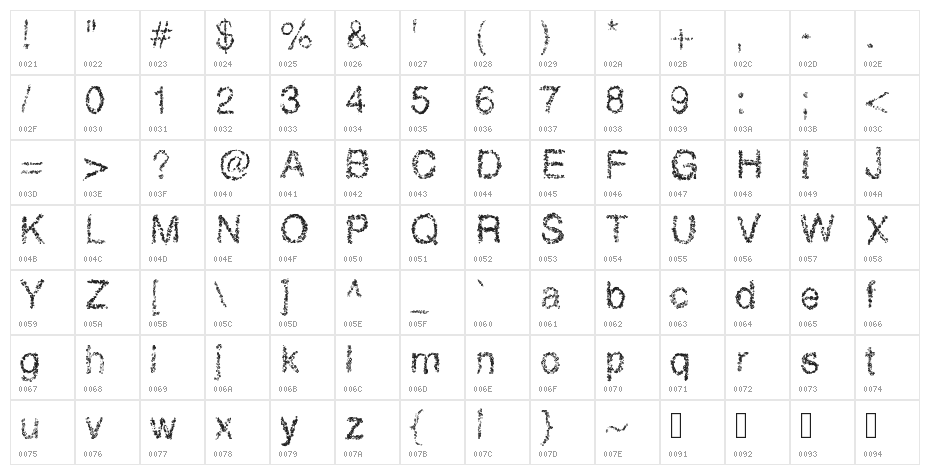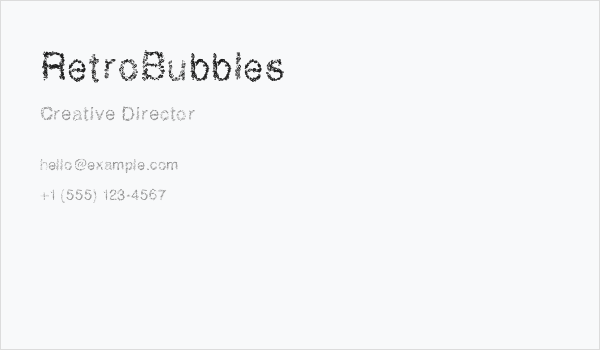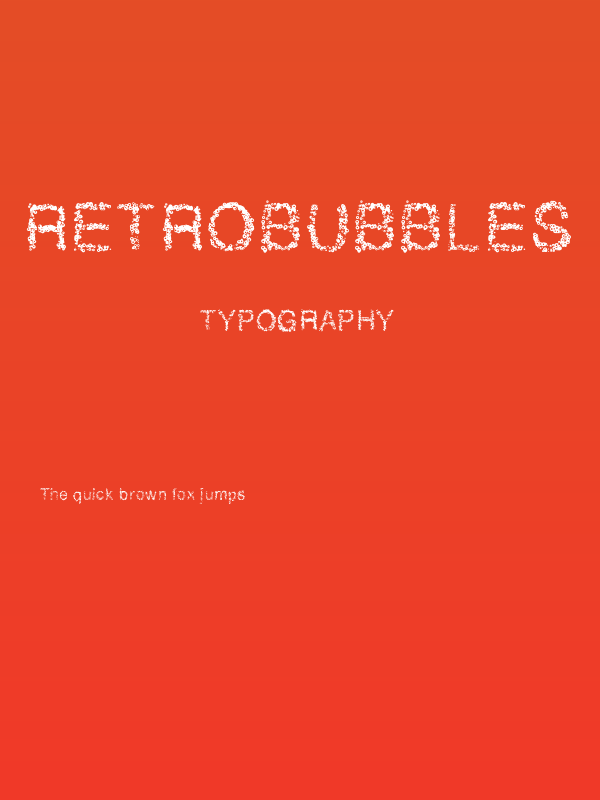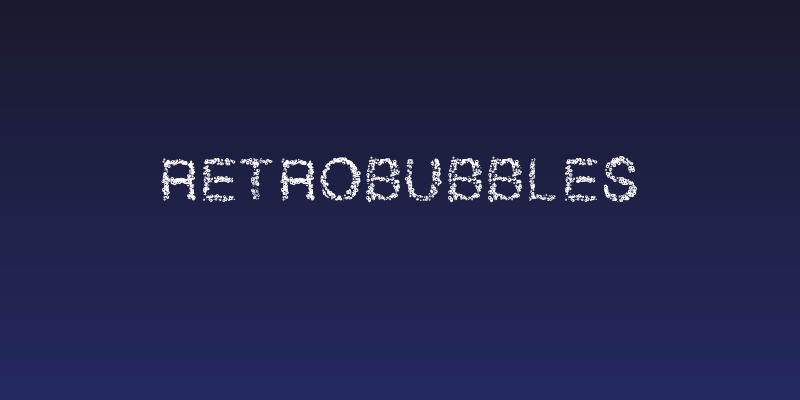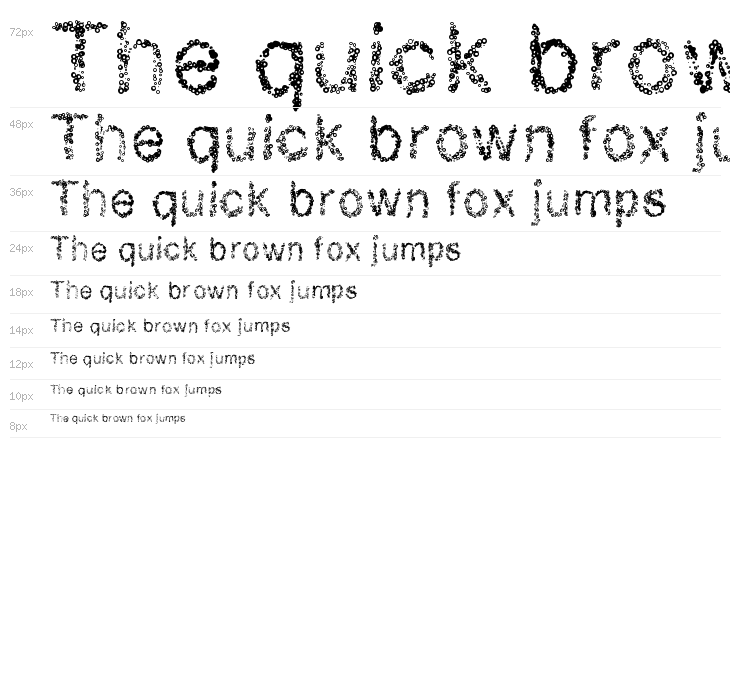
RetroBubbles Font
RetroBubbles Description
This font features a playful and bubbly design, with each character composed of numerous small circles that create a textured and dynamic appearance. The letters maintain a consistent structure, ensuring readability while offering a unique visual appeal. The font's whimsical style makes it ideal for projects that require a fun and engaging aesthetic. It includes a full set of uppercase and lowercase letters, numbers, and a variety of special characters, all adhering to the same bubbly theme.
Overall StylePlayful
Proposed ProjectsIdeal for children's books, party invitations, playful branding, and creative posters.